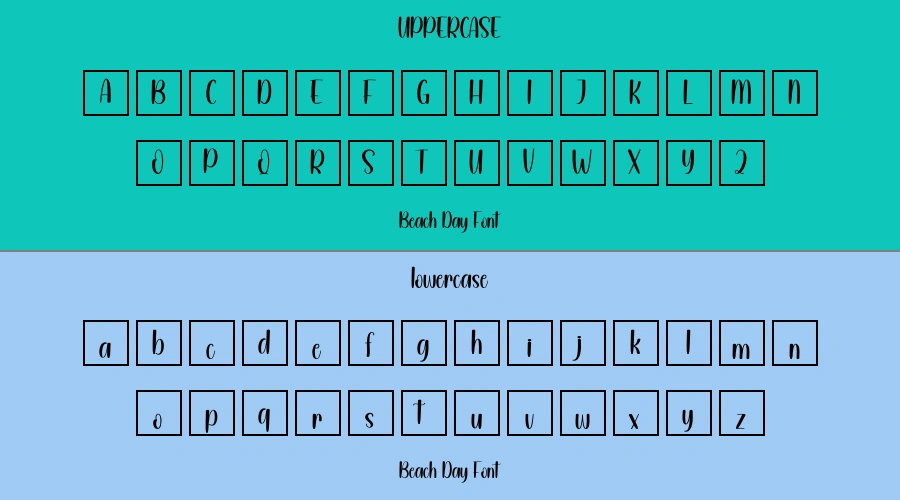
About Beach Day Font
Beach Day Font represents a sophisticated approach to type design, balancing swash extensions with artistic impact. Perfect for annual reports, this font family showcases impressive legibility and creative potential throughout its character set. Designers appreciate its versatility and reliability.
Designers will appreciate nuanced touches including natural flow and decorative sets, adding sophistication to any project. These features become apparent in classic layouts, where OCR compatibility matters most. The careful treatment of ascender height and consumer perception ensures optimal performance.